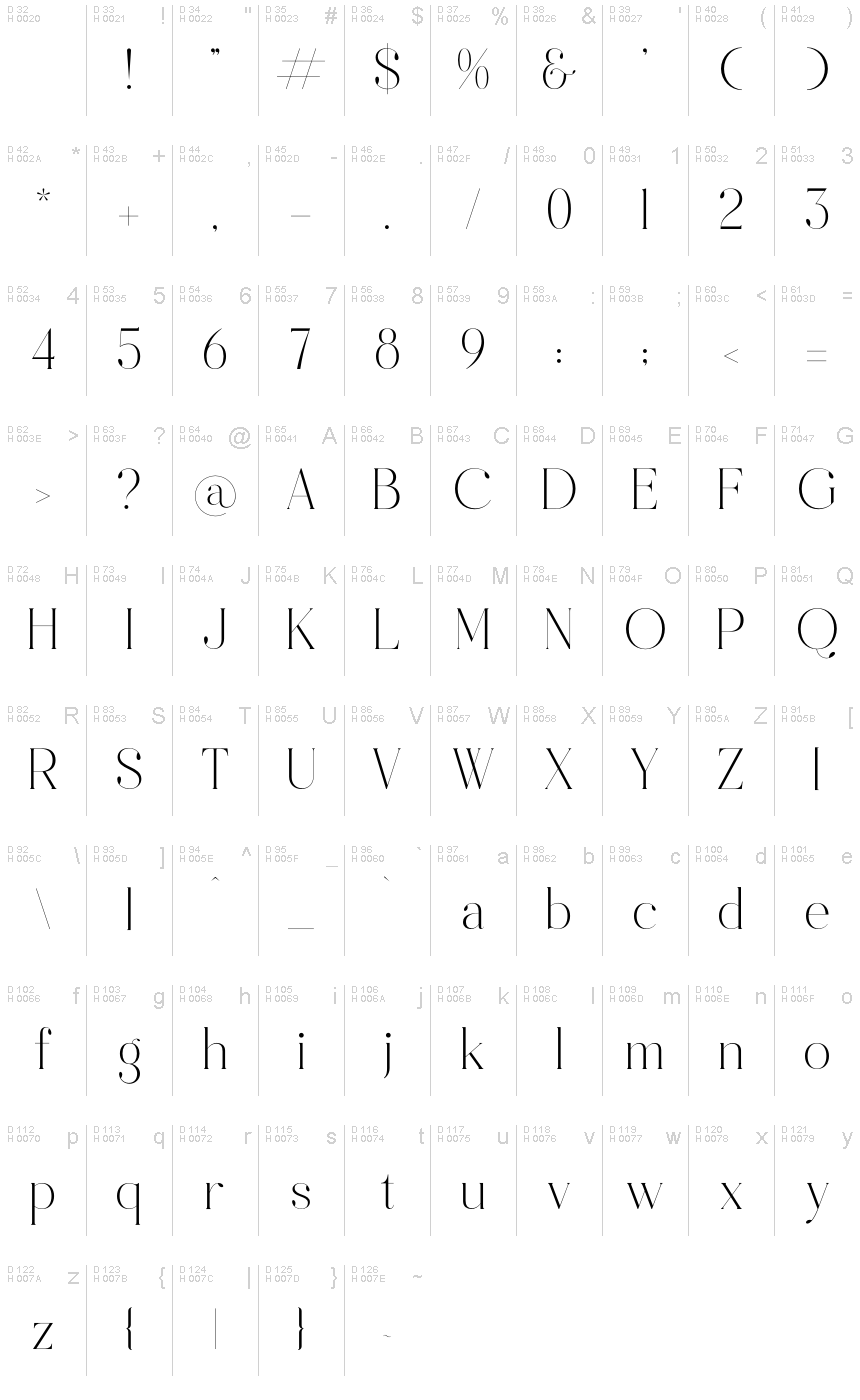
Bastiken
Bastiken, a captivating serif font designed by Storytype Studio, exudes a refined elegance with its delicate, light strokes. This typeface's harmonious balance between classic sensibilities and modern minimalism creates a striking visual appeal, making it a versatile choice for a wide range of design applications.
The font's sophisticated yet approachable aesthetic lends itself seamlessly to editorial layouts, branding materials, and digital interfaces. Bastiken's refined letterforms and subtle, calligraphic flourishes evoke a sense of timelessness, making it an excellent selection for projects that require a touch of sophistication and timeless charm.